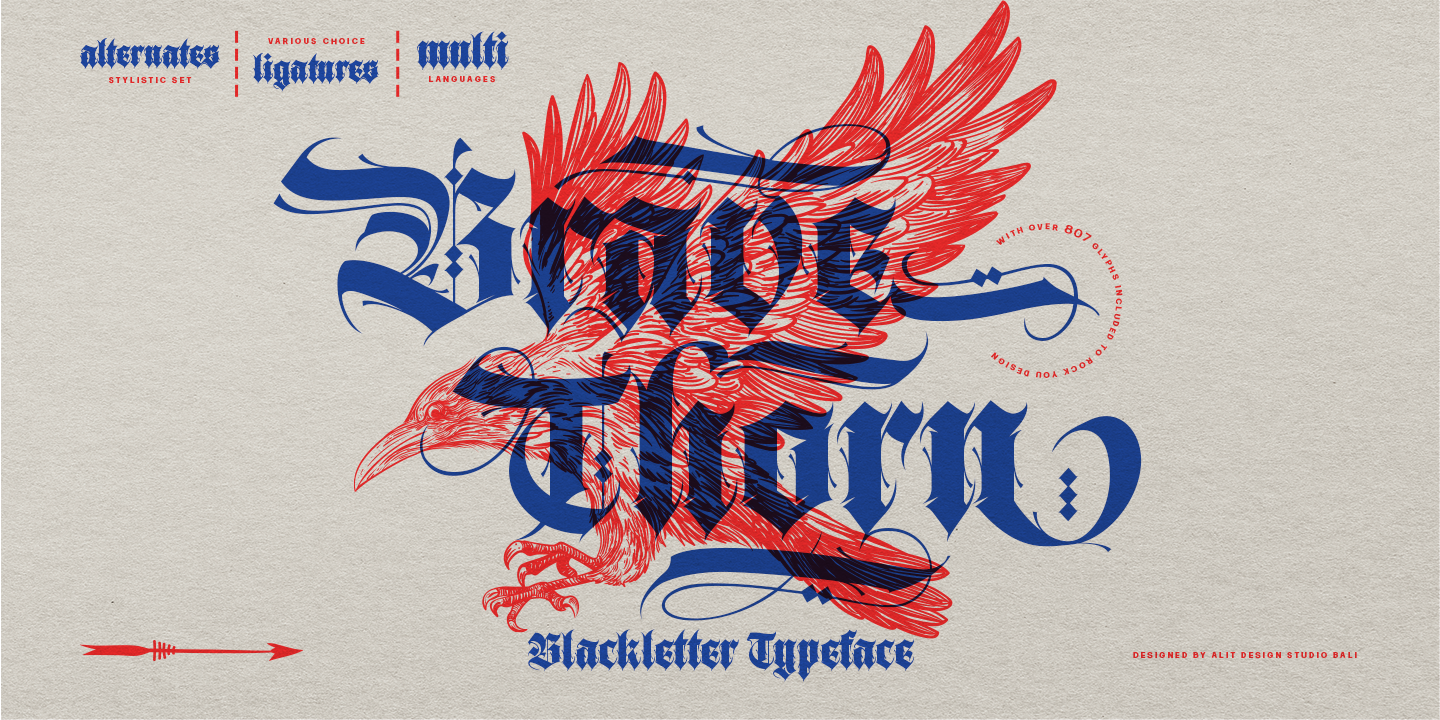
Brave Thorn Font Free Download is a striking decorative typeface that combines dark elegance with edgy flair. With its thorn-like details and bold letterforms, this font evokes mystery, strength, and a touch of gothic beauty. Please note that you must purchase this font for commercial use. It is available for free download for personal and testing purposes only.
You can use Brave Thorn Font in tattoo designs, gothic book covers, band logos, fantasy-themed posters, dark fashion branding, medieval-style invitations, horror film titles, or any project that craves a dramatic, ornate touch.
What makes Brave Thorn so exciting is its fierce personality. Every character feels handcrafted with sharp, deliberate strokes — like inked armor. It’s the kind of font that instantly tells a story, making your design unforgettable and full of tension and romance.
The Brave Thorn Font family may include variations such as Regular, Distressed, and Shadow, allowing you to add layers of mood and texture to your creative work with flexibility and style.
If you're searching for a font that balances boldness and elegance, danger and beauty, Brave Thorn Font Free Download is exactly what you need. Download it today and make your next design stand tall with thorned pride.